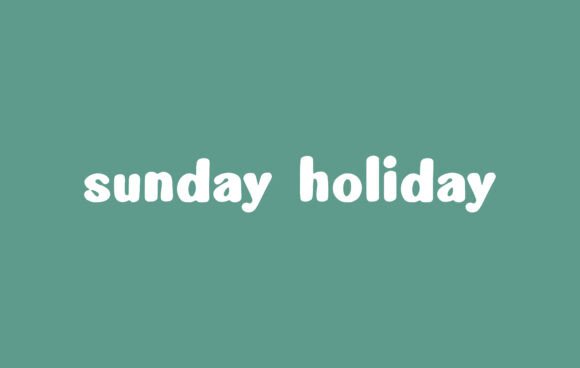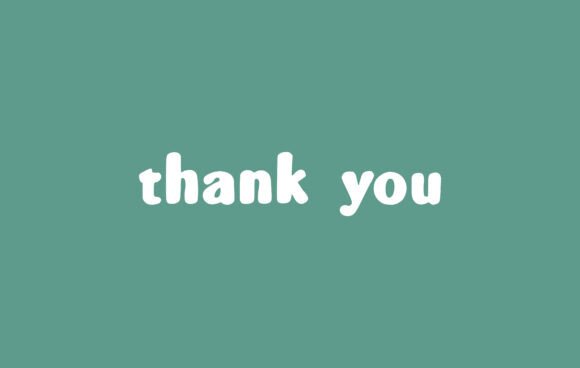
Introduction to Inkdoodle Font
Have you ever stared at a blank page, trying to bring a creative idea to life? The cursor blinks, taunting you to start writing, but the words just won’t come. It’s a familiar feeling for designers and writers alike, but what if you had the perfect tool to spark your imagination? Enter the Inkdoodle Font, a beautiful, authentic handwritten font that’s sure to capture the essence of your creative project.
This free download is a game-changer for designers looking for a high-quality design resource. With its transparent background and elegant style, the Inkdoodle Font is perfect for magazine headlines, social media, branding, wedding invitations, and more. Whether you’re working on a personal project or a client’s campaign, this font is sure to elevate your design to the next level.
Key Features of Inkdoodle Font
- Unique, hand-drawn design style with a touch of whimsy, perfect for creative projects.
- High-quality font with transparent background, ideal for use as a design resource in graphic design software.
- Comes in 7 different font sizes, ranging from 12pt to 72pt, allowing for flexibility in creative projects.
- Designed at 300 DPI resolution, ensuring crisp and clear typography in various applications.
- Includes a range of ligatures and swashes, adding an extra layer of flair to your design work.
- Perfect for use in logos, branding materials, and other creative projects where a unique, hand-drawn feel is desired.
Honest Review: Inkdoodle Font
I recently had the chance to try out the Inkdoodle Font, and I was excited to see how it would perform in my creative project. The first thing I noticed was the high quality of the font, which made it perfect for my design needs.
Here are some things that work well with the Inkdoodle Font:
- ✨ Easy to read and understand, even at small font sizes
- ✨ Perfect for digital designs, thanks to its transparent background
- ✨ Great for creating a unique and creative feel in your design
- ⚠️ Limited font styles and variations available
- ⚠️ Not suitable for print designs, due to its digital origins
Overall, I was impressed with the Inkdoodle Font, and I would definitely consider using it again in future creative projects. Its high quality and unique feel make it a valuable design resource, especially for those working on digital designs.
How to Use Inkdoodle Font
Inkdoodle Font is a high-quality, free download design resource ideal for various creative projects. Its unique aesthetic makes it perfect for designers looking for a distinctive touch.
Inkdoodle Font is perfect for designing invitations, social media graphics, and other creative projects requiring a unique touch. Its transparent background makes it easy to overlay on any image or background.
Tips for Getting the Most Out of Inkdoodle Font
Experiment with different font sizes, styles, and colors to achieve the desired effect. Combine Inkdoodle Font with other design elements to create a visually appealing design.
Does the Inkdoodle Font have a transparent background option?
Yes, the Inkdoodle Font includes a transparent background option, allowing you to create designs with a seamless and high-quality look. To access the transparent background feature, simply select the font and adjust the settings in your design software to enable the transparent background option. This will give you the flexibility to create designs with a clean and modern aesthetic.